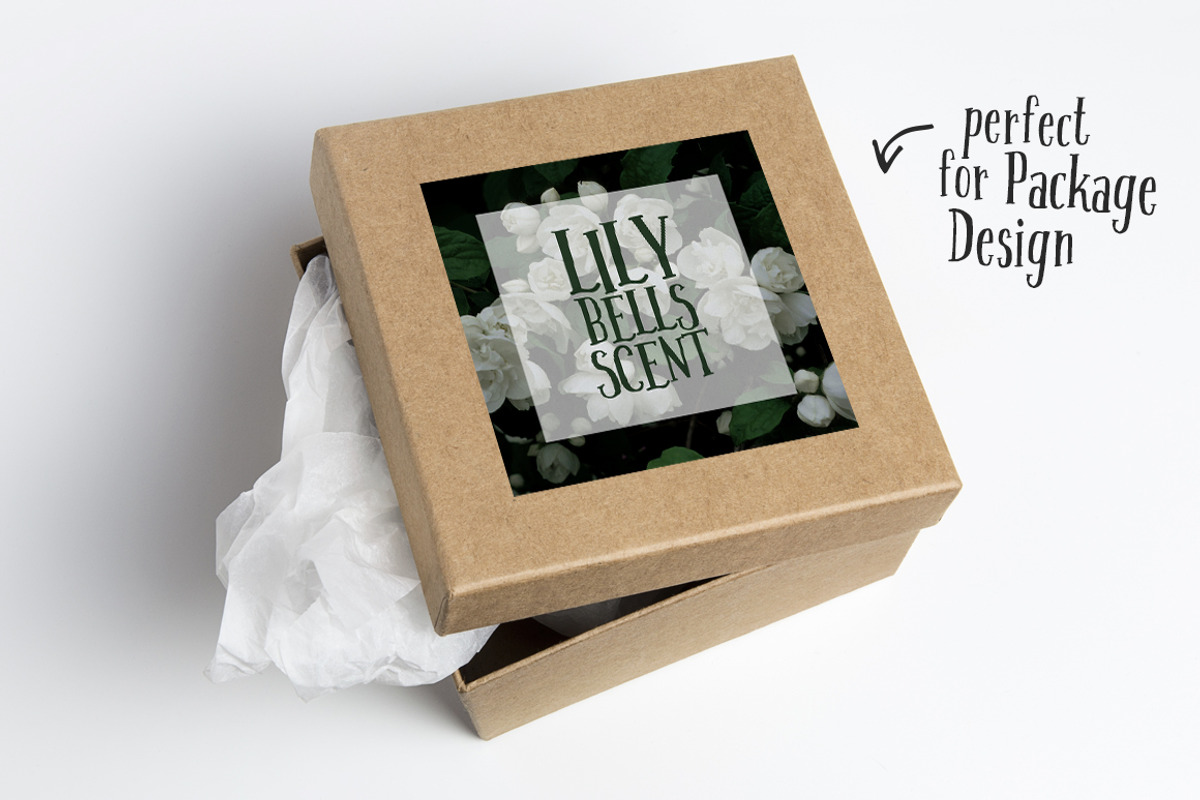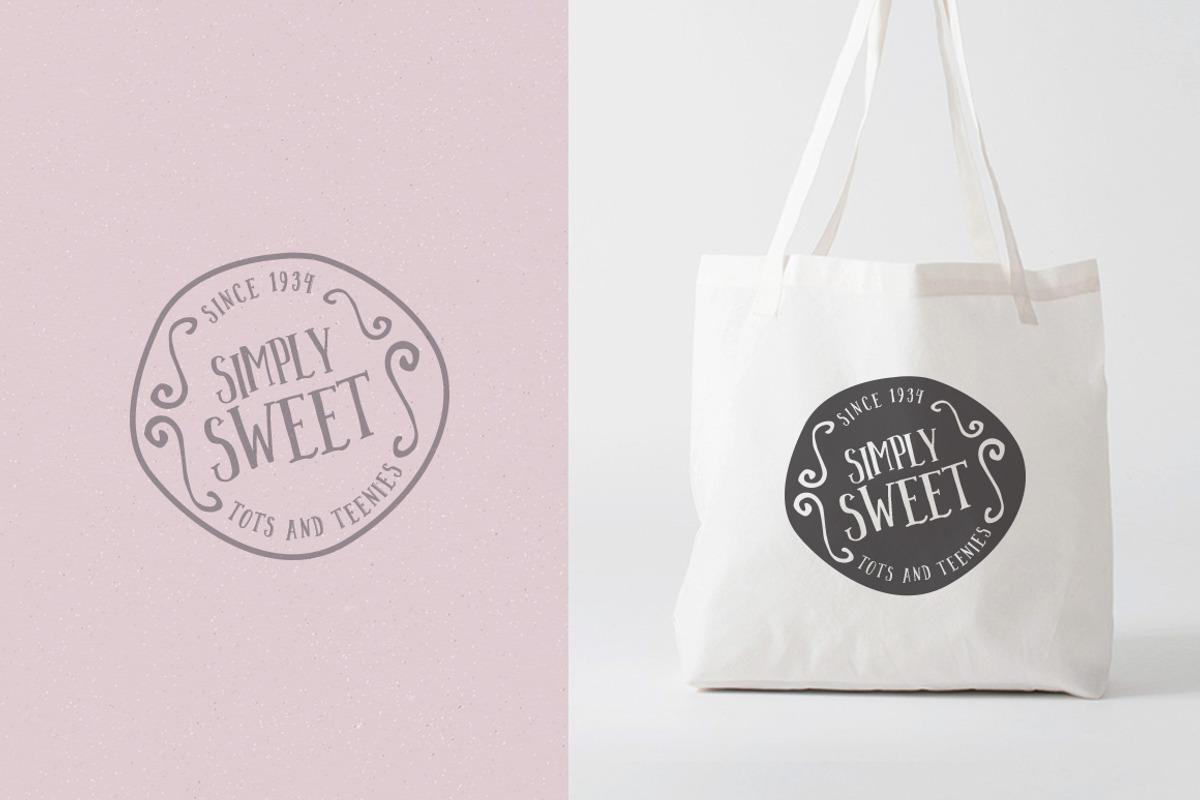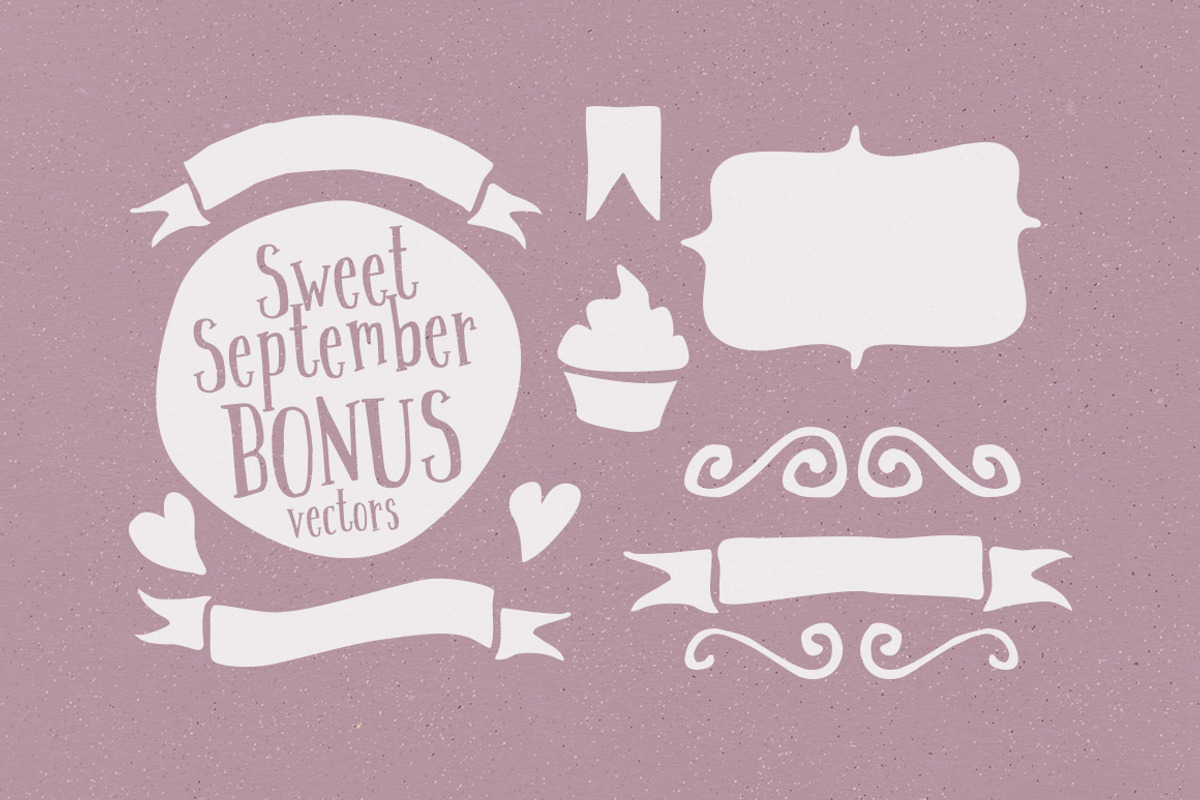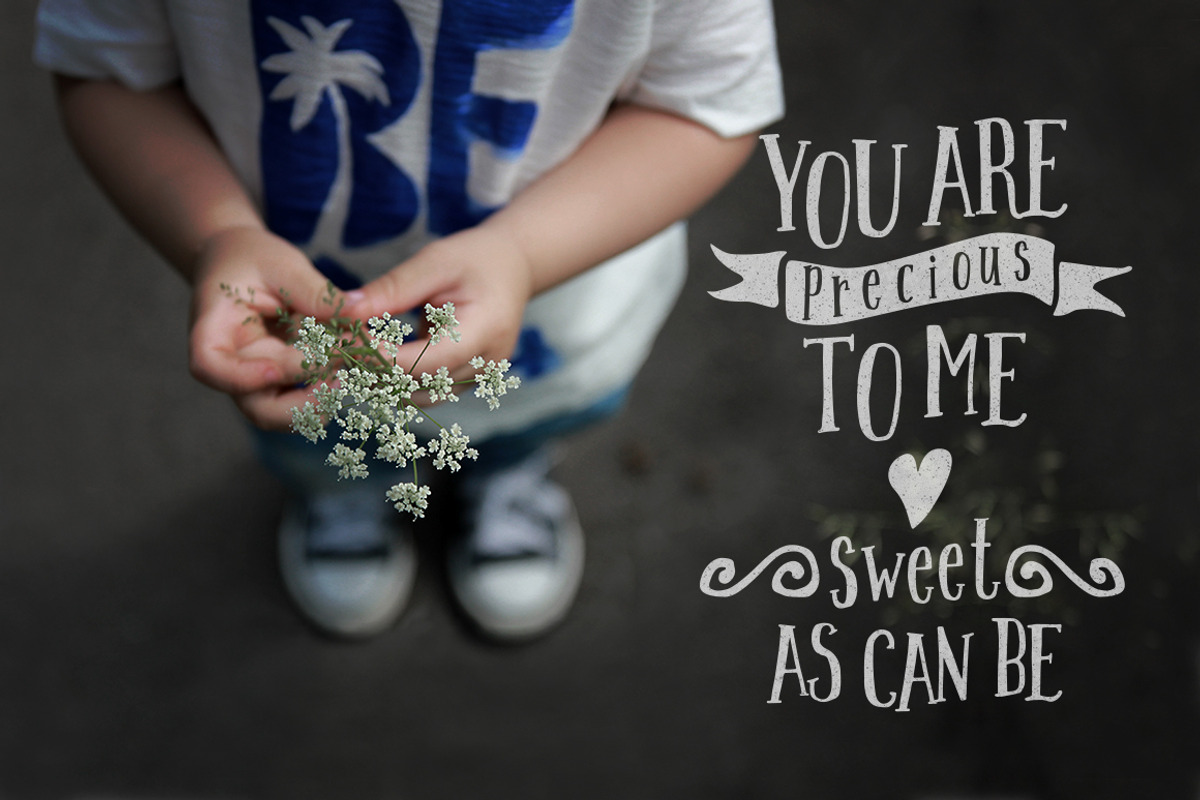
Sweet September handwritten font
Sweet September handwritten font by Angele Kamp is a font selected for branding, posters, packaging, typography.
- This font comes with bonus vector goodies which are great for package design, invites, quotes, and any other sweet projects you're working o
Why Sweet September handwritten font is worth a look
Sweet September handwritten font by Angele Kamp fits naturally into Branding, posters, packaging, typography.